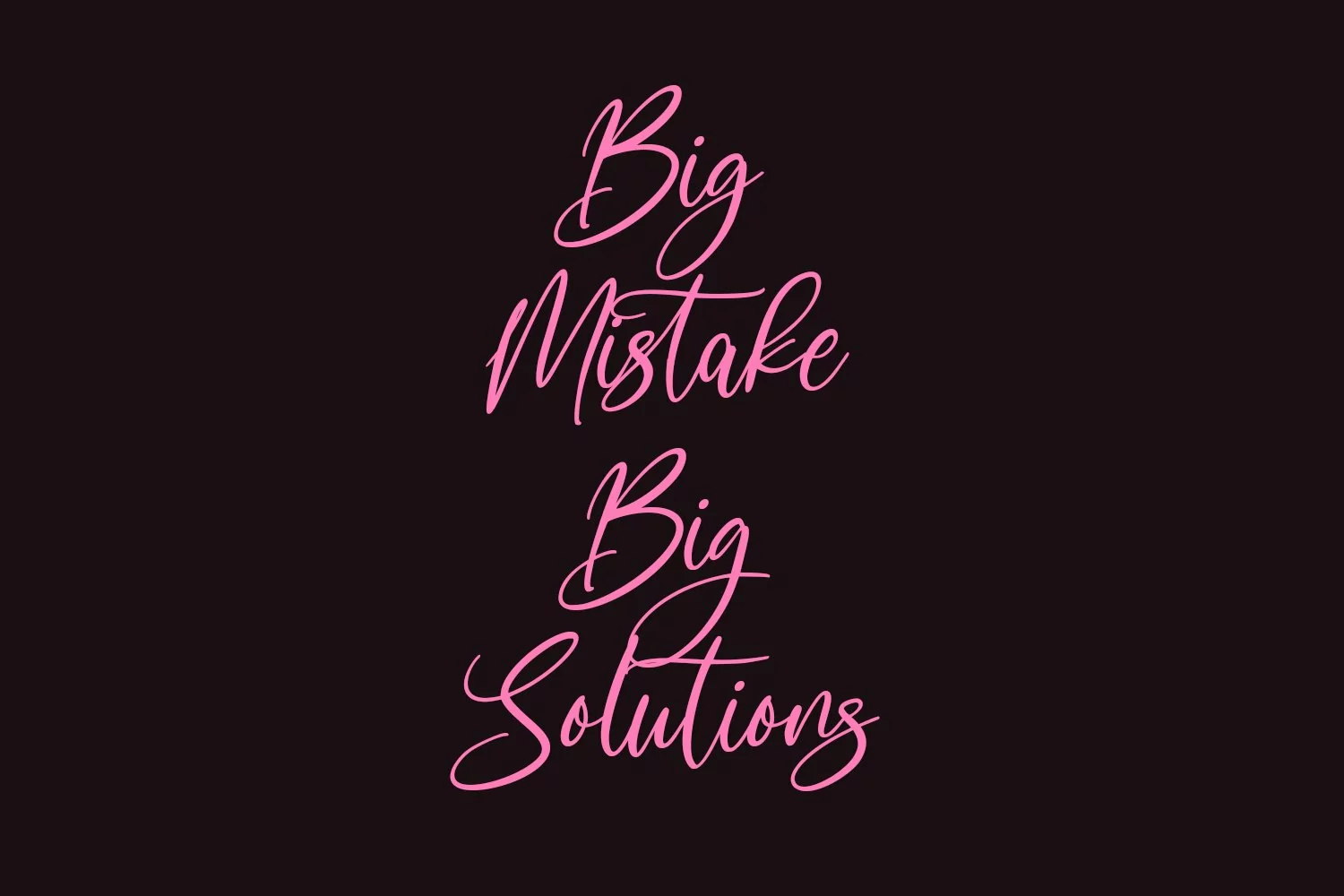
Los Kapel is a casual signature script font. With medium contrast stroke, fun character with a bit of ligatures and alternates. To give you an extra creative work. Los Kapel font support multilingual more than 100+ language. This font is good for logo design, Social media, Movie Titles, Books Titles, a short text even a long text letter and good for your secondary text font with sans or serif. Make a stunning work with Los Kapel font.
Los Kapel